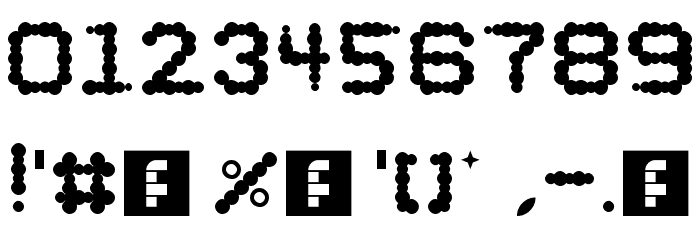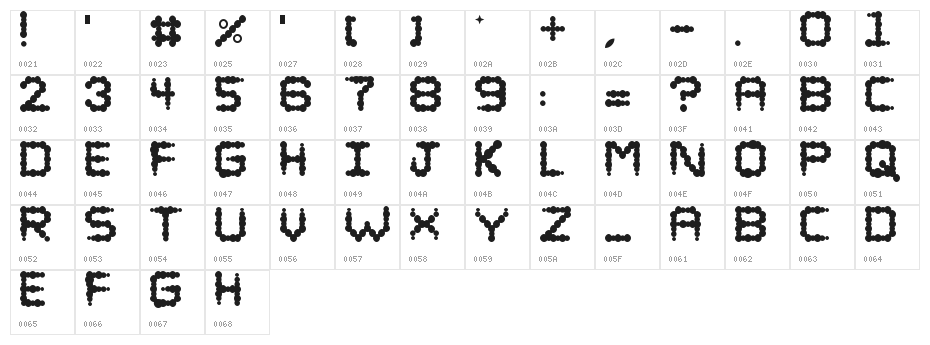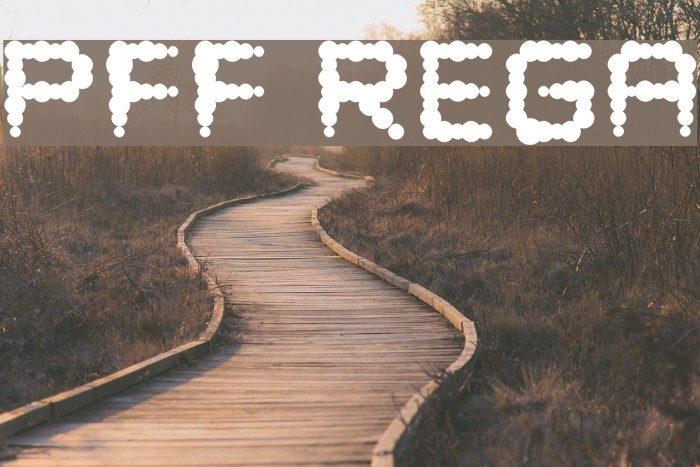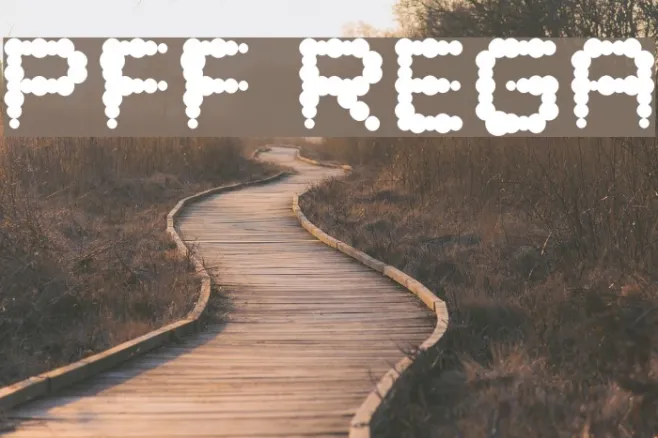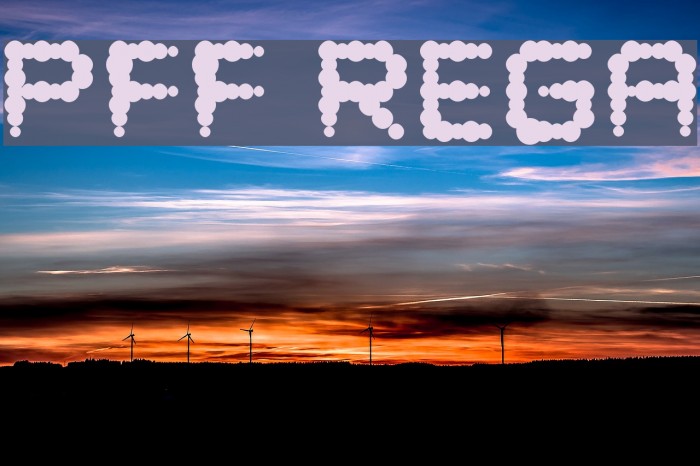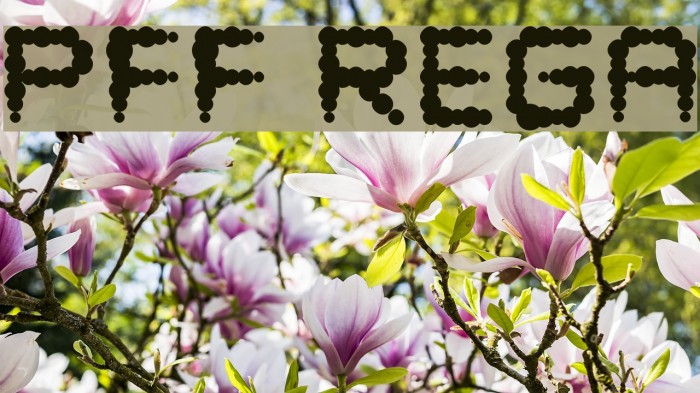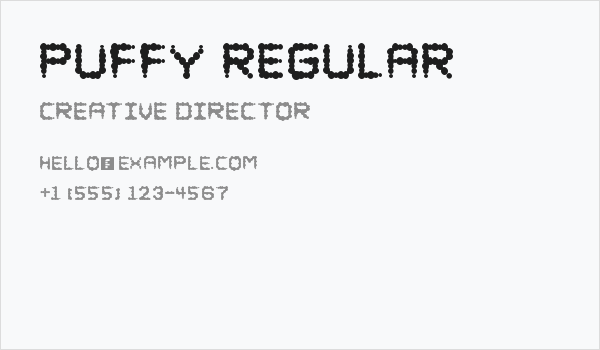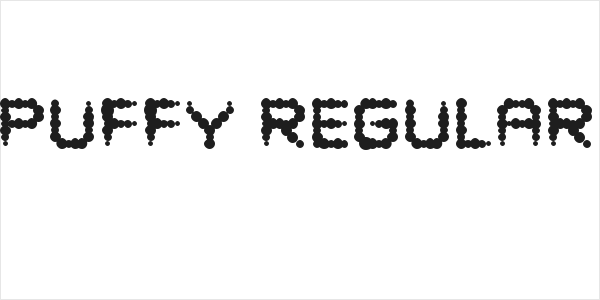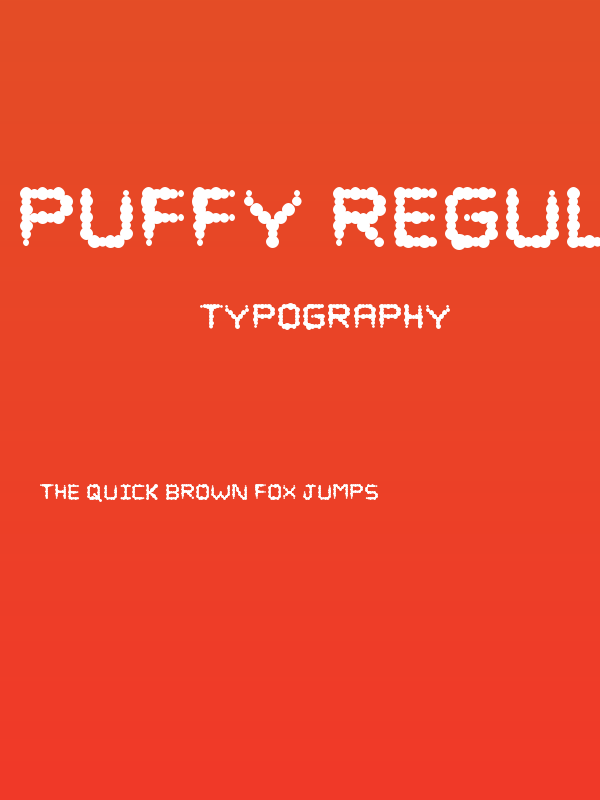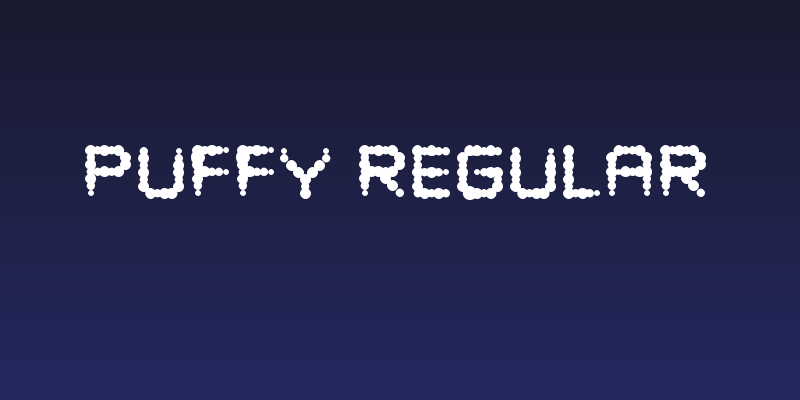
Puffy Regular Font
Puffy Regular Description
This font features a playful and unique design, characterized by its rounded, bubble-like appearance. Each character is composed of small, circular shapes that give it a soft and puffy look. The font maintains a consistent thickness throughout, contributing to its whimsical and approachable style. It is highly decorative, making it ideal for projects that require a fun and engaging visual element. The characters are evenly spaced, ensuring readability despite the unconventional design. This font is perfect for creative projects that aim to capture attention with its distinct and lively aesthetic.